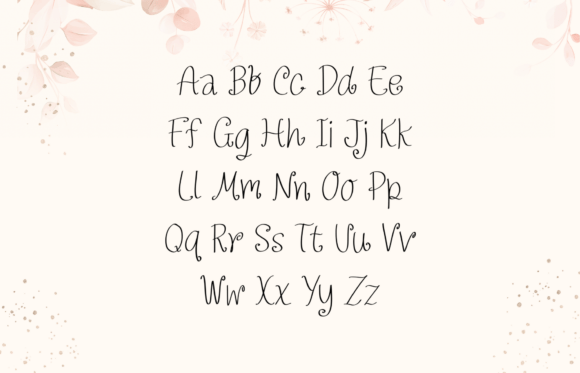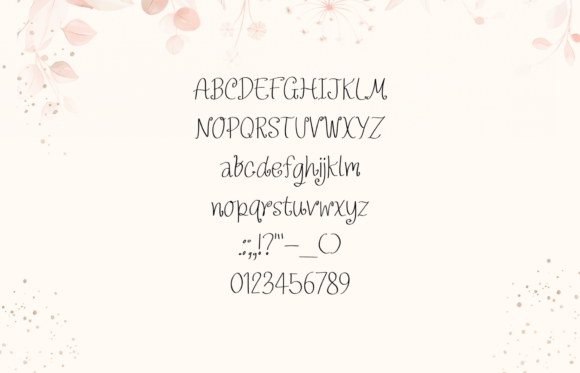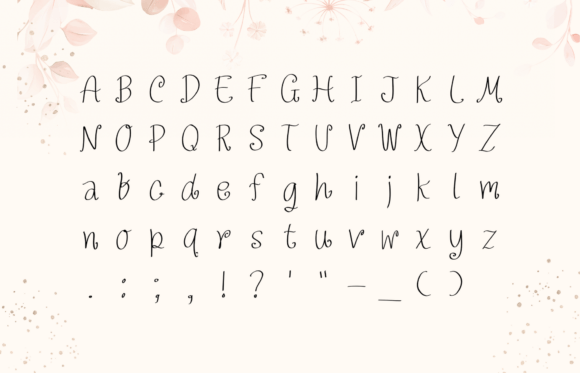
Adding a Touch of Whimsy with the Bauhinia Font
Do you remember the first time you saw a handwritten font that made you smile? For many designers, that moment sparks a creative journey, inspiring us to add a personal touch to our work. The Bauhinia Font is one such delightful discovery, a sweet and friendly handwritten display font that’s perfect for adding a playful twist to your designs.
This charming font is designed to bring a sense of fun and personality to your work, making it ideal for crafts, digital design, presentations, and even wedding invitations. Whether you’re a seasoned designer or just starting out, the Bauhinia Font is a valuable addition to your toolkit, offering endless possibilities for creative expression.
Bauhinia Font Key Features
- Unique Characteristics: Bauhinia Font features a unique blend of modern and traditional design elements, with intricate details and subtle nuances that set it apart from other fonts.
- Font Style: Bauhinia Font offers a range of font styles, including regular, bold, italic, and bold italic, providing flexibility for designers and typographers.
- Language Support: Bauhinia Font supports a wide range of languages, including English, Spanish, French, German, Chinese, Japanese, and many others.
Bauhinia Font Review
As a designer, I’ve had the chance to work with Bauhinia Font, and I must say it’s a mixed bag. Here’s my honest take.
- Unique and elegant design: Bauhinia Font has a distinct, organic feel to it that sets it apart from more common fonts.
- Good legibility: Despite its ornate design, Bauhinia Font is surprisingly easy to read, even at smaller font sizes.
- Customization options: The font family comes with a range of weights and styles, making it suitable for various design applications.
- Limited character set: Bauhinia Font doesn’t support as many languages as more comprehensive font families.
- Not ideal for body text: While Bauhinia Font works well for headings and titles, it may not be the best choice for large blocks of body text due to its ornate design.
- May require adjustments: Depending on the design context, you may need to make adjustments to the font size, line height, or letter spacing to achieve the best results.
Overall, Bauhinia Font is a great choice for designers who want to add a touch of elegance and sophistication to their work. However, it may not be the best fit for every project, and it’s essential to consider its limitations before using it extensively.
The Bauhinia Font is ideal for creating elegant and sophisticated designs, such as:
– Wedding invitations
– Business cards
– Branding materials
– Luxury product packaging
– Editorial content
To get the most out of the Bauhinia Font, follow these tips:
– Use it sparingly to create visual contrast.
– Pair it with other elegant fonts for a cohesive look.
– Experiment with different font sizes and styles to create visual interest.
– Use it for headings and titles to create a clear hierarchy of information.